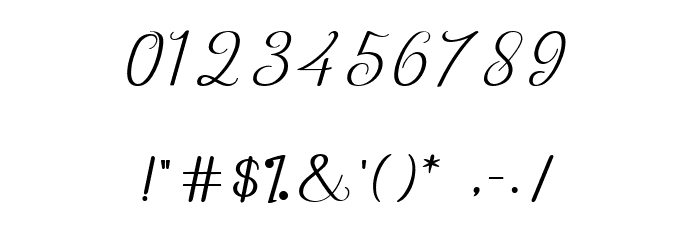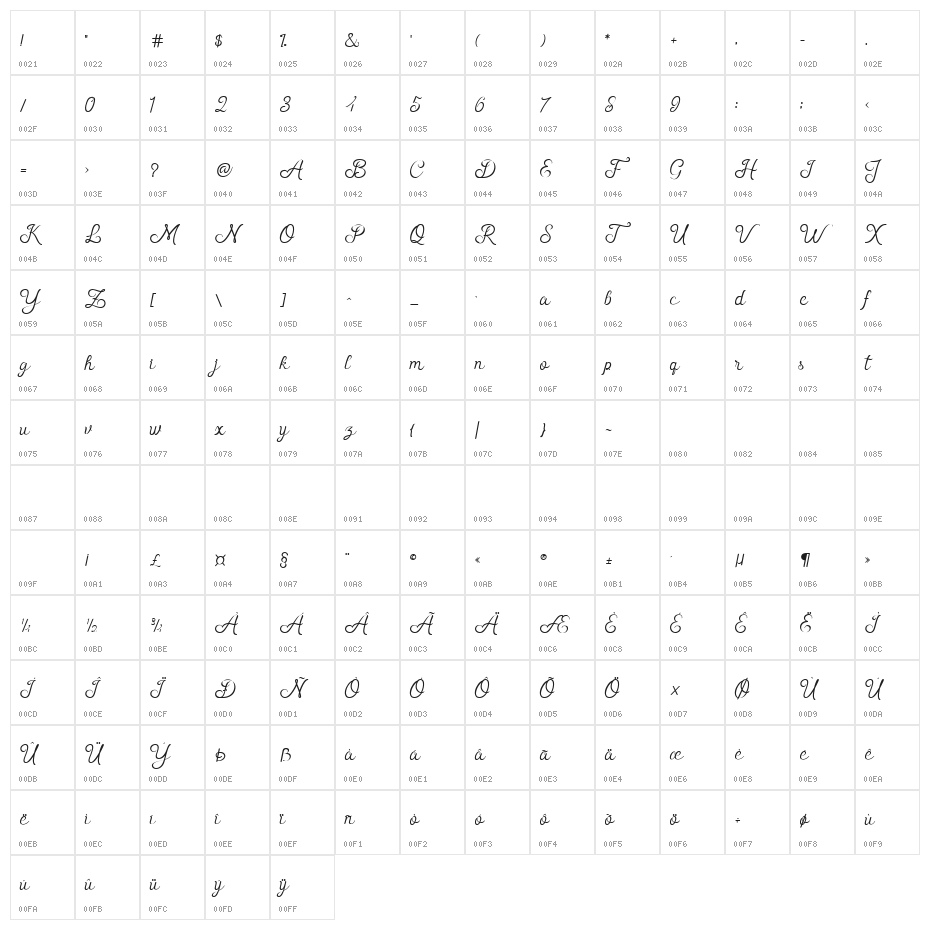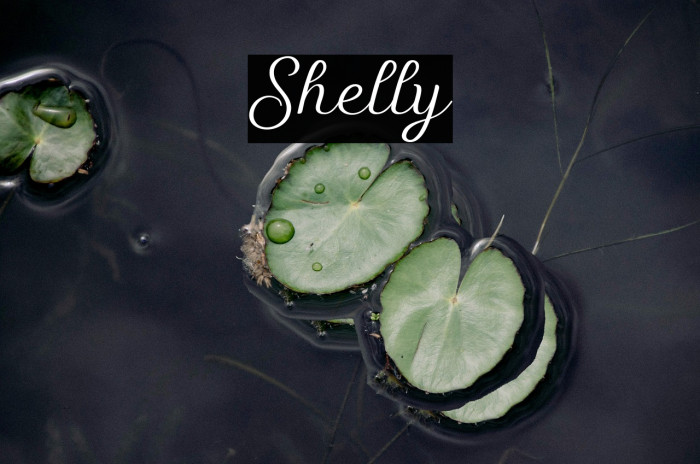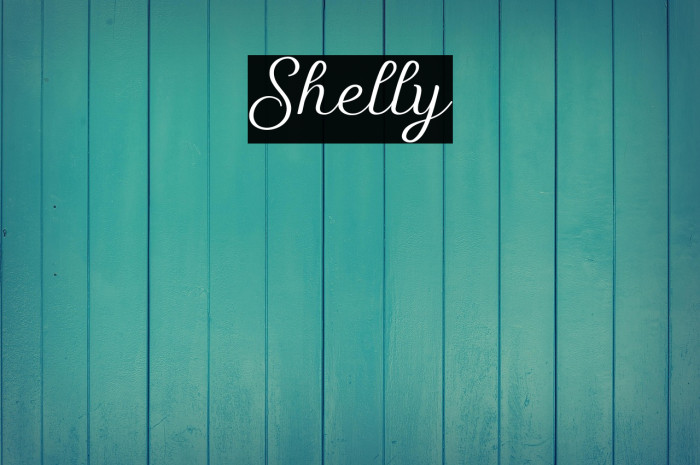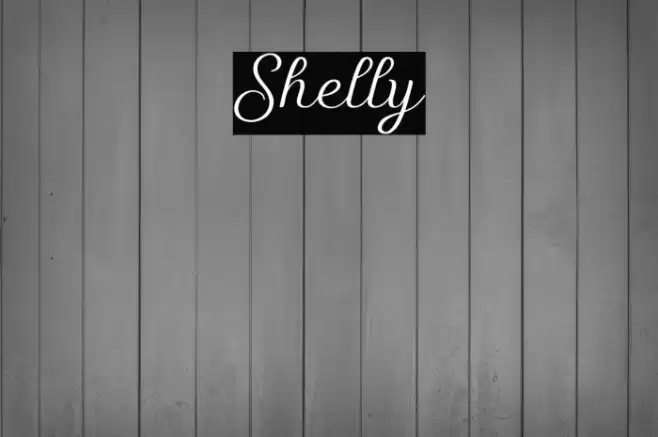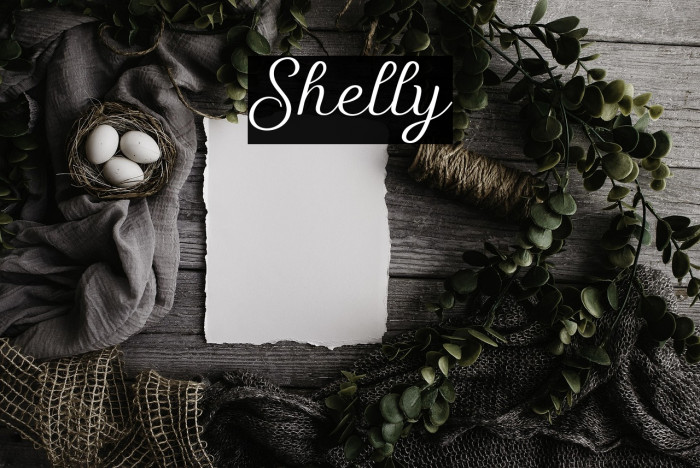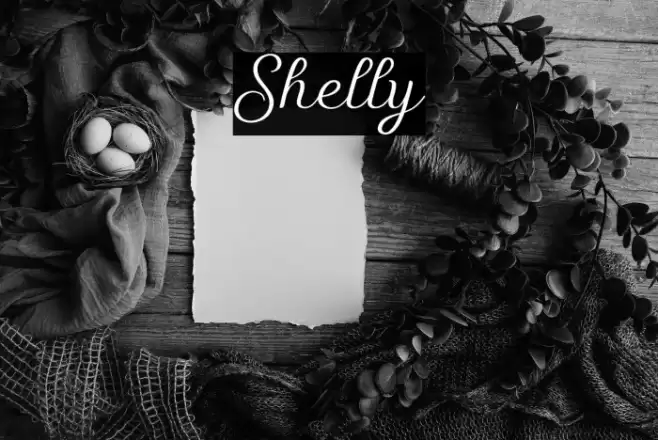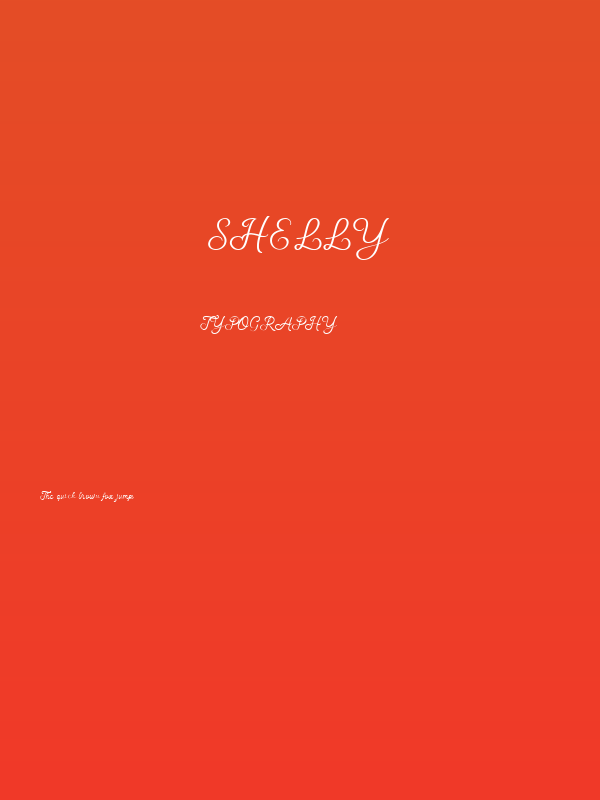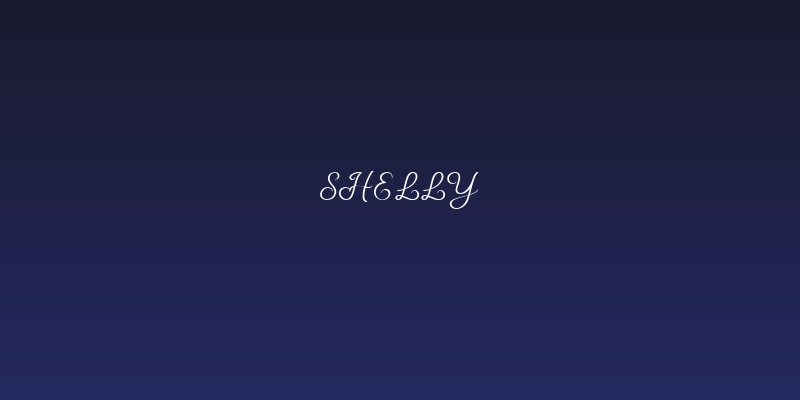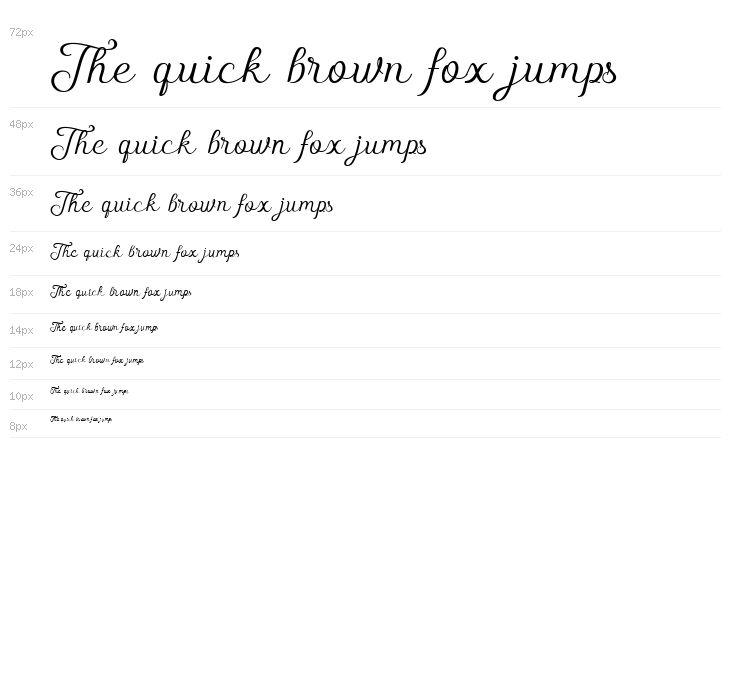
Shelly Font
Shelly Description
This elegant script font features a flowing, cursive style with graceful loops and swashes. The uppercase letters are ornate, with distinctive flourishes that add a touch of sophistication. The lowercase letters maintain a consistent slant, creating a harmonious and fluid appearance. Numbers and special characters are designed to complement the overall aesthetic, ensuring a cohesive look across all text elements. This font is perfect for projects that require a touch of elegance and formality, such as wedding invitations, formal event programs, or upscale branding materials.
| Use Case | Invitations, Branding, Stationery |
| Proposed Projects | Ideal for wedding invitations, formal event programs, upscale branding, and elegant stationery. |